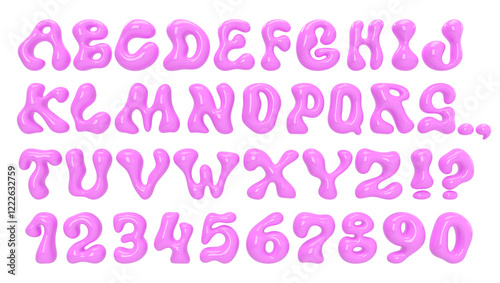
Pink plastic liquid font. Bold bubble typescript. Y2K wavy alphabet. Groovy letters and numbers with molten effect. Three-dimensional round typeface isolated on transparent background